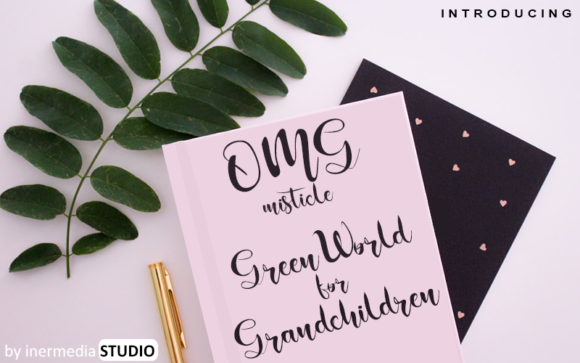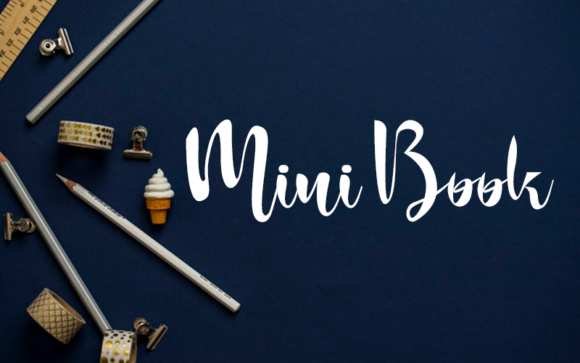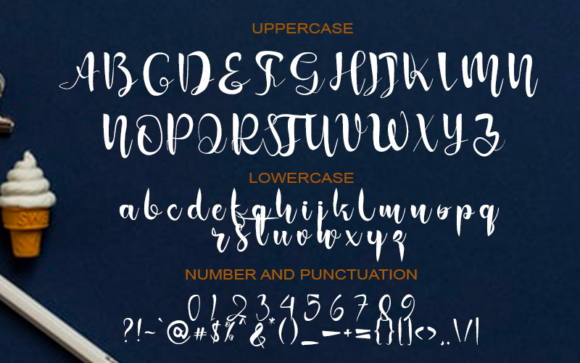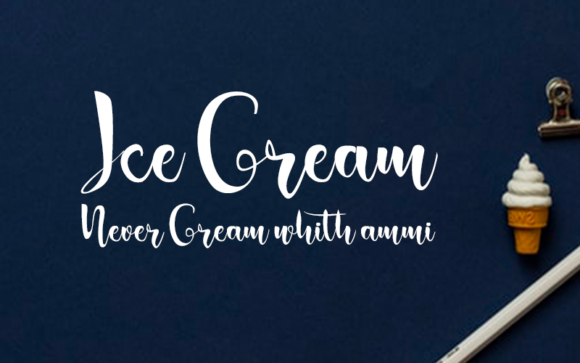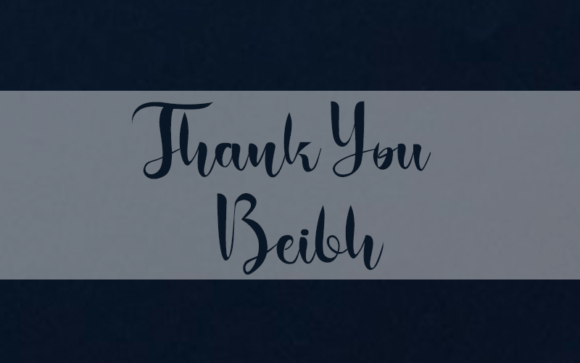
Omg Misticle Font
Omg Misticle is an elegant and modern handwritten font that brings its own unique style to any design project.
This font is the perfect fit for all of your logos, branding, social media, and crafty DIY projects.